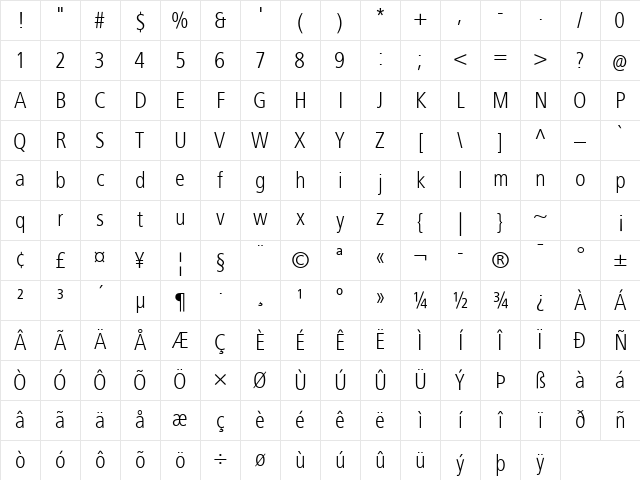
Complete FrutigerNextLT Light glyph index. Displaying only characters natively supported by FrutigerNextLT Light font.
FrutigerNextLT is a composed and adaptable typeface that performs quietly and consistently across a wide range of design contexts. Its slender proportions lend an understated elegance to any composition.
Who designed the FrutigerNextLT Light font?